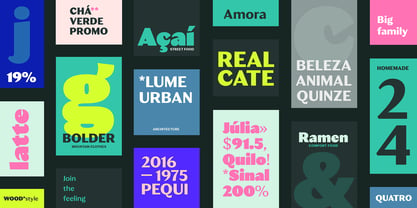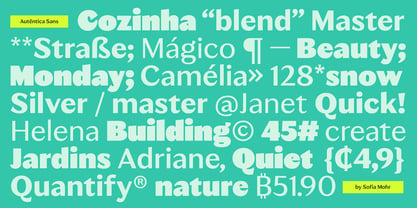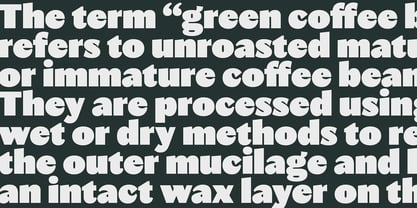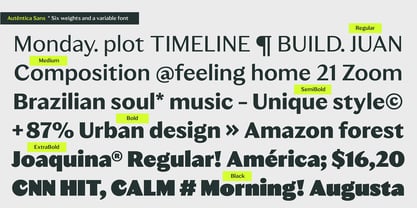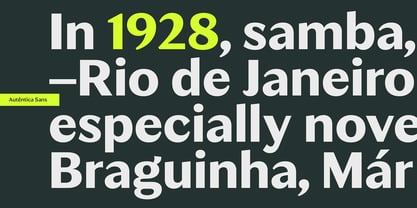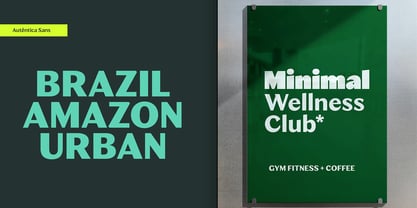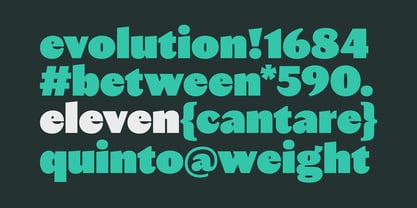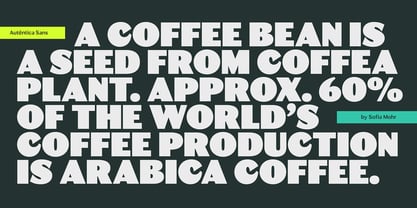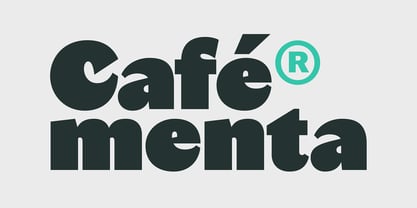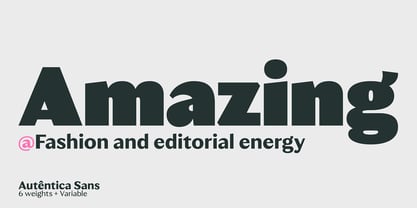
Autêntica Sans
by Sofia Mohr
Autêntica Sans doesn’t try to fit in — it follows its own path. Expressive and full of personality, Autêntica Sans is a typeface with an organic structure and striking contrast. Its strokes subtly narrow and expand across the letterforms, creating rhythm, movement, and visual tension while maintaining clarity. Diagonal cuts introduce a sense of direction and break strict predictability, giving the typeface a distinctive voice and dynamic presence. Designed between 2024 and 2025, Autêntica Sans is the first release in a larger type family that will expand into additional styles, including Serif, Slab, Classic, and Rounded versions. Primarily designed for display use, Autêntica Sans spans weights from Regular to Black, shifting effortlessly between restraint and bold expression. Autêntica Sans isn’t neutral — and it isn’t meant to be. It’s a typeface designed to be seen, recognized, and remembered. The name says it all: Autêntica Sans.
Sofia Mohr is a Brazilian type designer who explores typography as a living, expressive language. Her typefaces move between structure and spontaneity, combining organic forms, rhythmic contrast, and cultural influences. Born in Brazil and shaped by more than a decade in Chile, Sofia developed a design approach influenced by the intersection of different cultures and visual traditions. This blend often appears in her typefaces, which explore movement, warmth, and personality — at times breaking typographic conventions to develop a voice of their own. Originally trained as an architect, she later specialized in type design, where she found her primary creative focus: designing letterforms that feel alive, expressive, and intended for real-world use. Today she lives in Brazil near the ocean — one of her favorite places. The rhythm of the waves, the energy of cities, the calm of nature, and small everyday moments often find their way into her creative process. Through her work, she aims to create distinctive typefaces — expressive, memorable fonts designed for real-world use by designers everywhere.